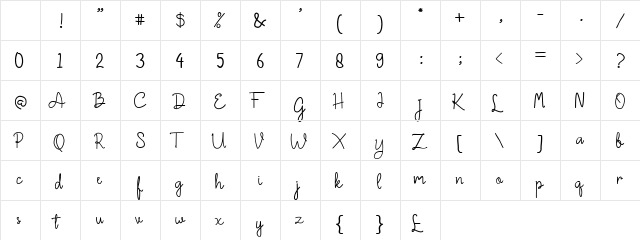
Complete Anotherline_1 Light Italic glyph index. Displaying only characters natively supported by Anotherline_1 Light Italic font.
Anotherline_1 is a composed and adaptable typeface that performs quietly and consistently across a wide range of design contexts. The slanted form adds forward momentum and visual energy. Its slender proportions lend an understated elegance to any composition.
Pro Tip: Use Anotherline_1 for emphasis, pull quotes, and subheadings where its slanted energy can add rhythm to the layout.